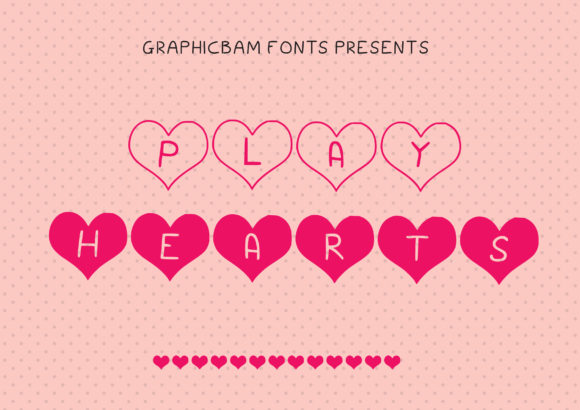
Step into the world of love and enchant your designs with the Play Hearts Font, a decorative font family that exudes sweetness, romance, and delicate beauty. Specially crafted by GraphicsBam Fonts, this font is your perfect companion for creating heartfelt designs that capture the essence of love and affection.
Immerse yourself in the whimsical world of the Play Hearts Font, where each letter dances with elegance and charm. Its intricate details and flowing curves add a touch of sophistication to your designs, making them stand out from the ordinary. Whether you're creating Valentine's Day cards, love letters, wedding invitations, or any design that calls for a warm and inviting touch, the Play Hearts Font is your ultimate choice.
With its versatility and adaptability, the Play Hearts Font effortlessly complements a wide range of design styles. From whimsical and playful to elegant and timeless, this font seamlessly blends with your creative vision, enhancing your designs with a touch of romance and charm. Unleash your imagination and let the Play Hearts Font guide you in creating designs that captivate hearts and leave a lasting impression.